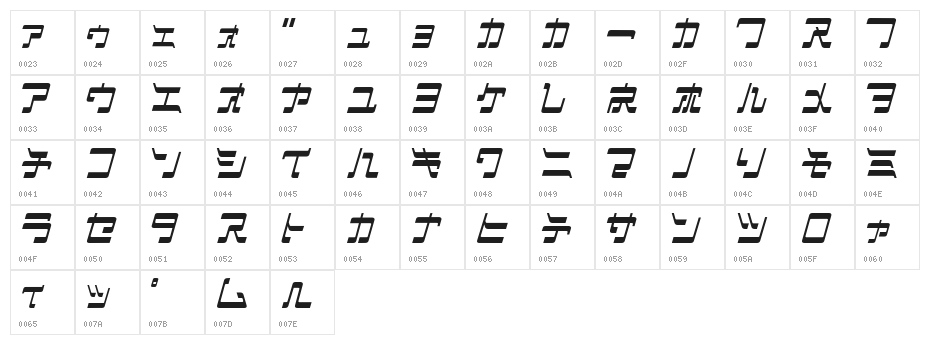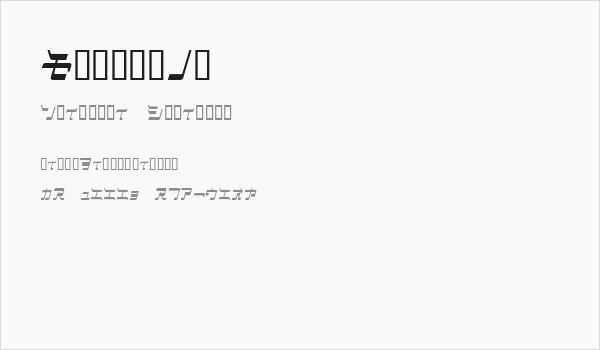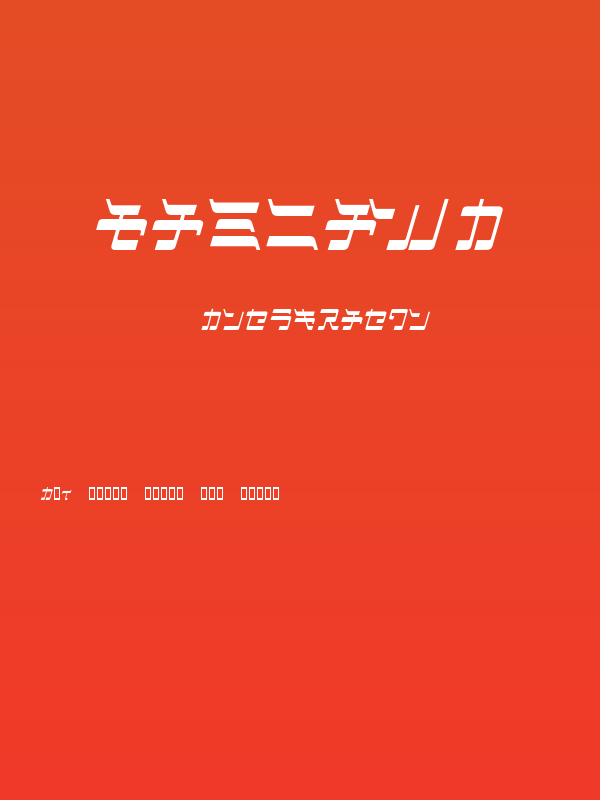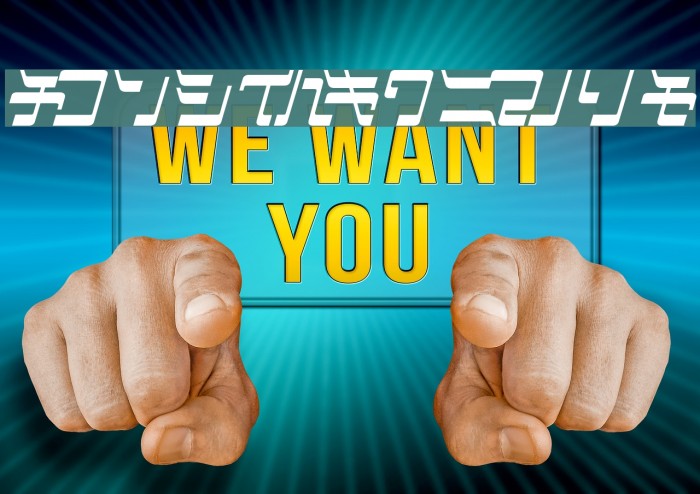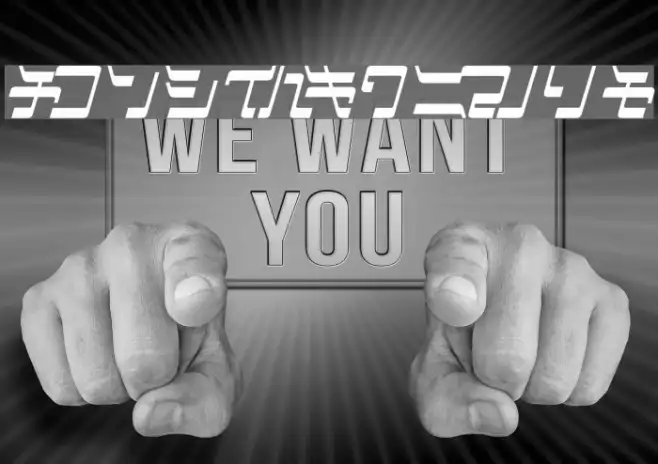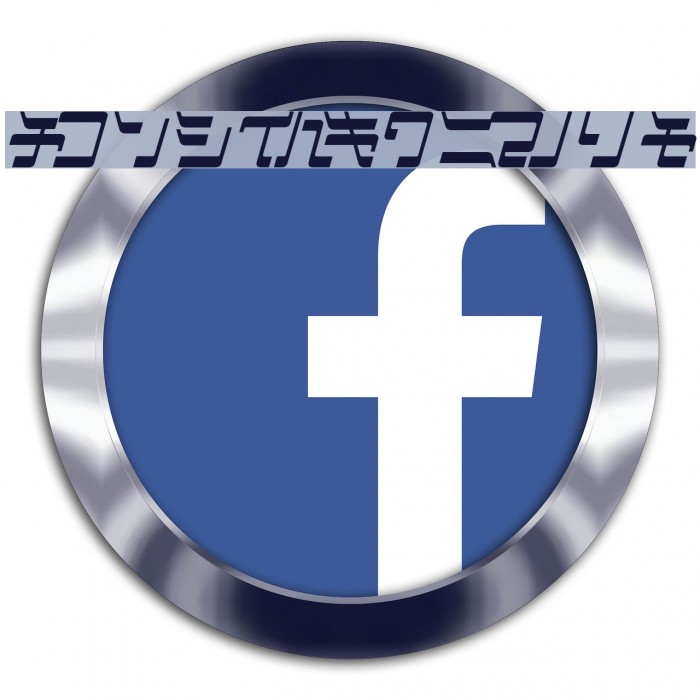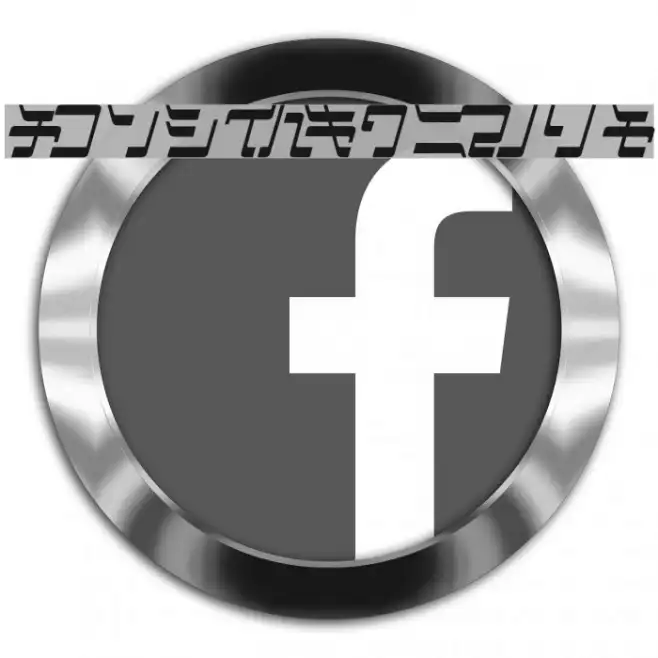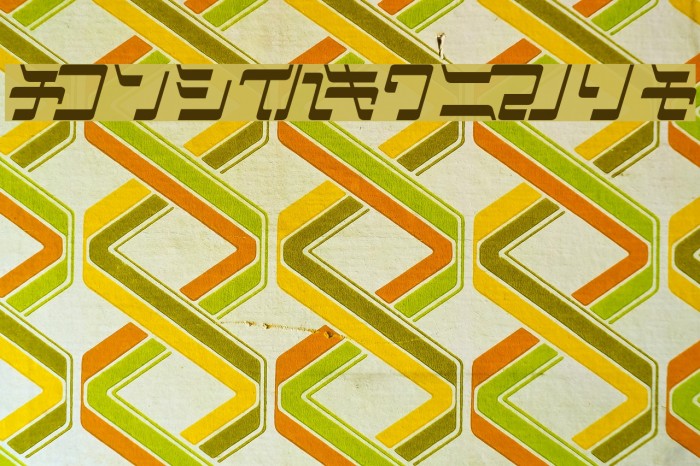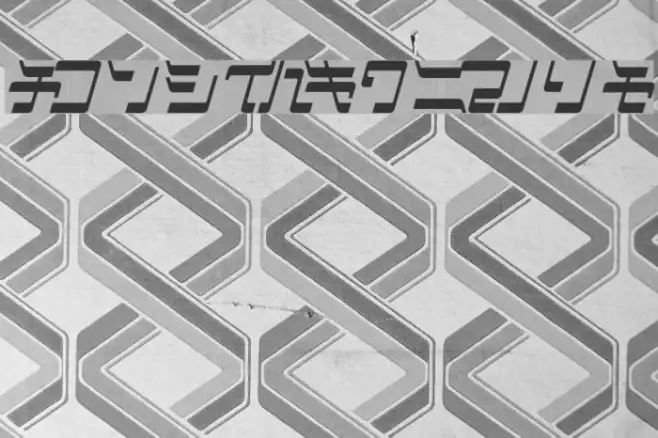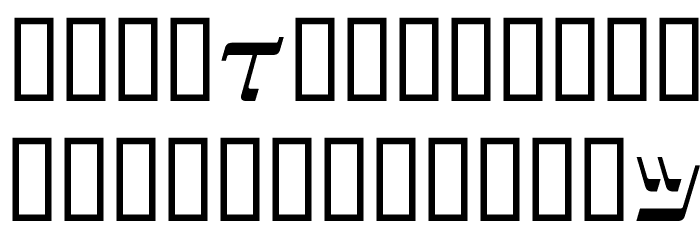
ManiacKt Font
ManiacKt Description
This font features a futuristic and angular design, characterized by sharp edges and a dynamic slant. The letters have a unique, almost mechanical appearance, with a consistent stroke width that gives it a bold presence. The characters are slightly condensed, enhancing the compact and efficient look. The font's geometric style is reminiscent of digital or sci-fi themes, making it suitable for projects that require a modern and edgy aesthetic. Its distinctiveness lies in the way each character maintains a balance between readability and stylistic flair, making it ideal for attention-grabbing headlines or branding that seeks to convey innovation and forward-thinking.
| Width | Condensed |
| Proposed Projects | Ideal for sci-fi themed designs, tech branding, video game titles, and futuristic posters. |